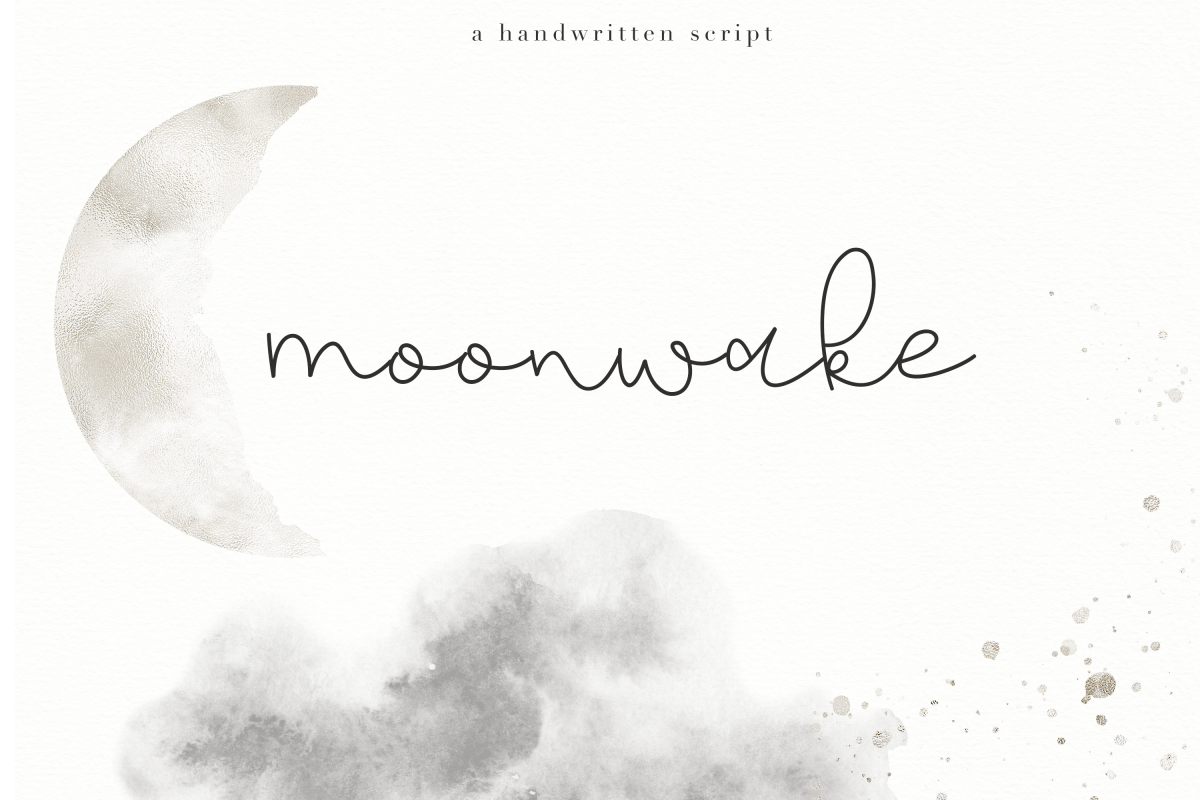
Moonwake - Handwritten Font
Moonwake
Moonwake is a handwritten script font.
This font is perfect for quotes, headings, blogs, logos, invitations and more!
This font *does* include accent characters.